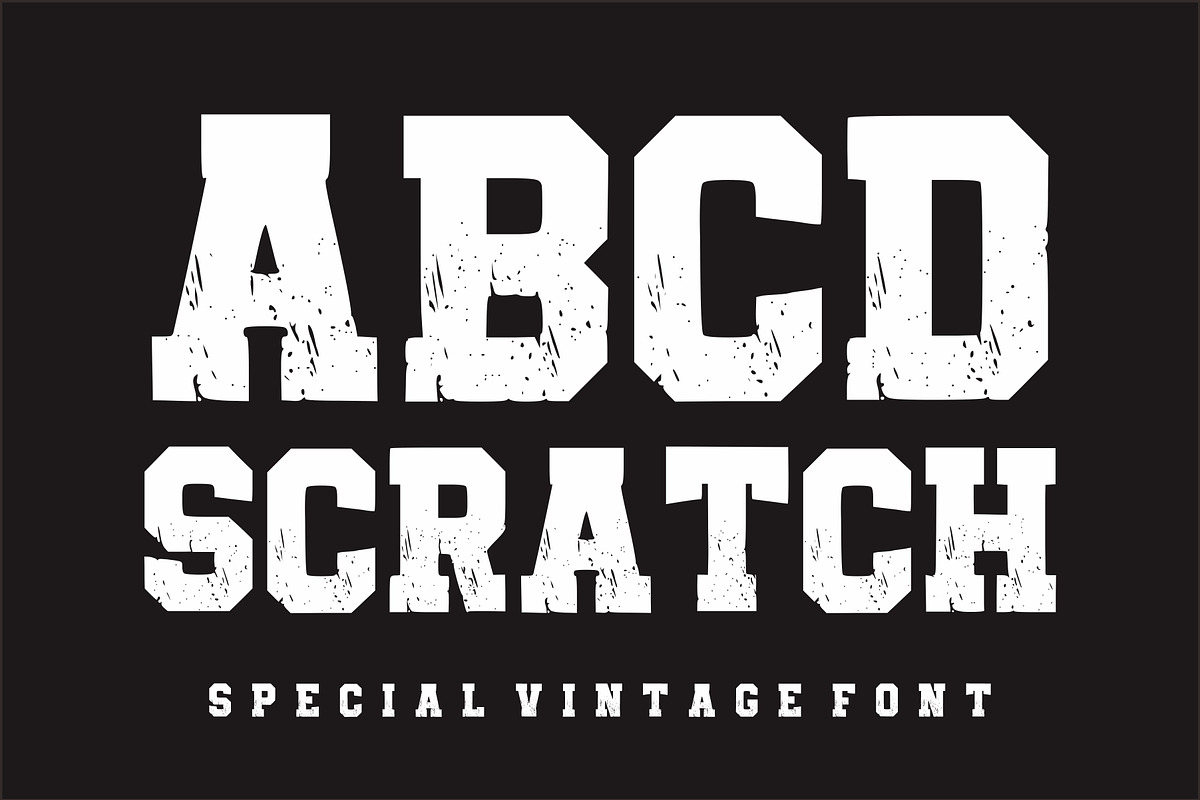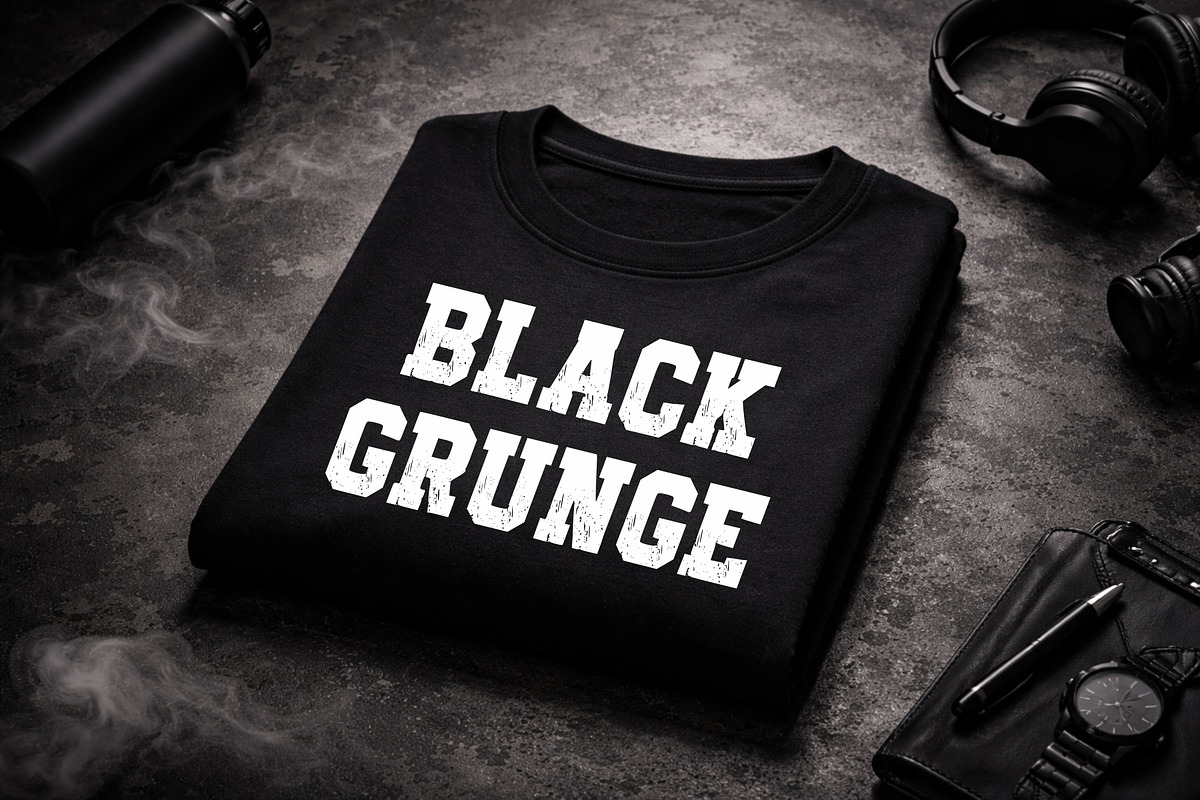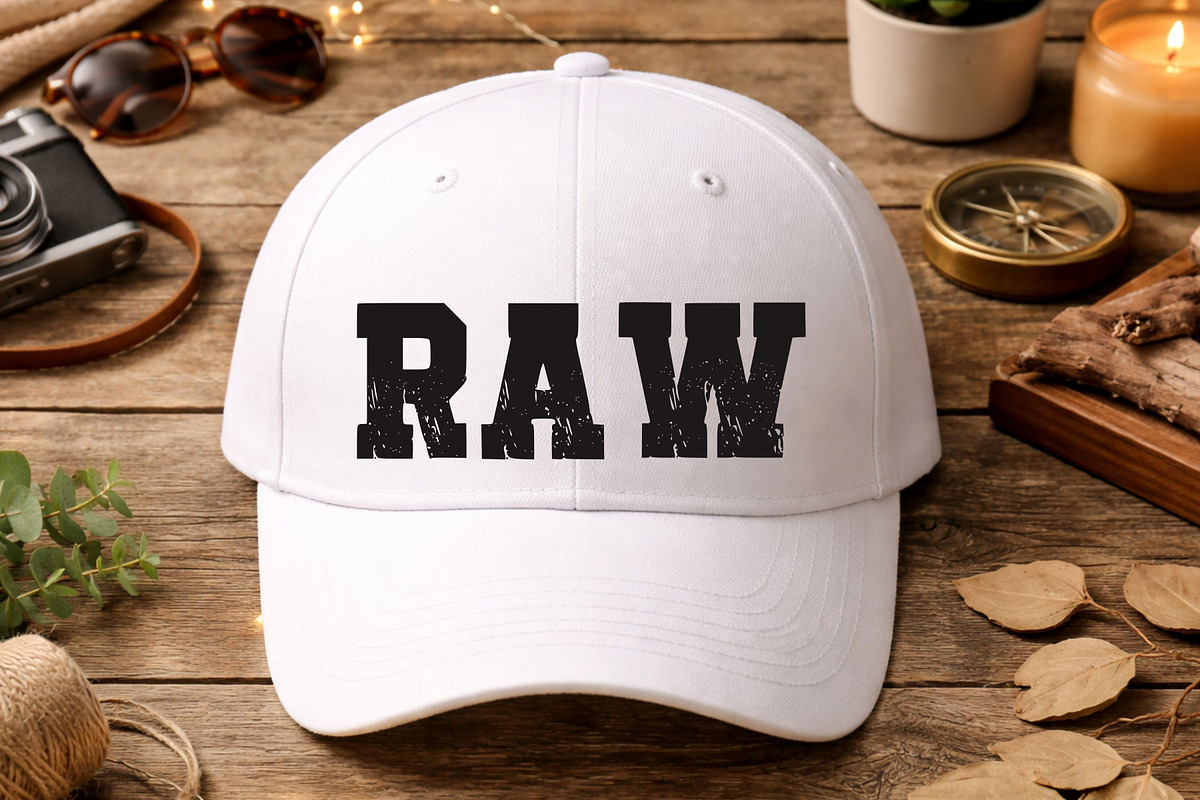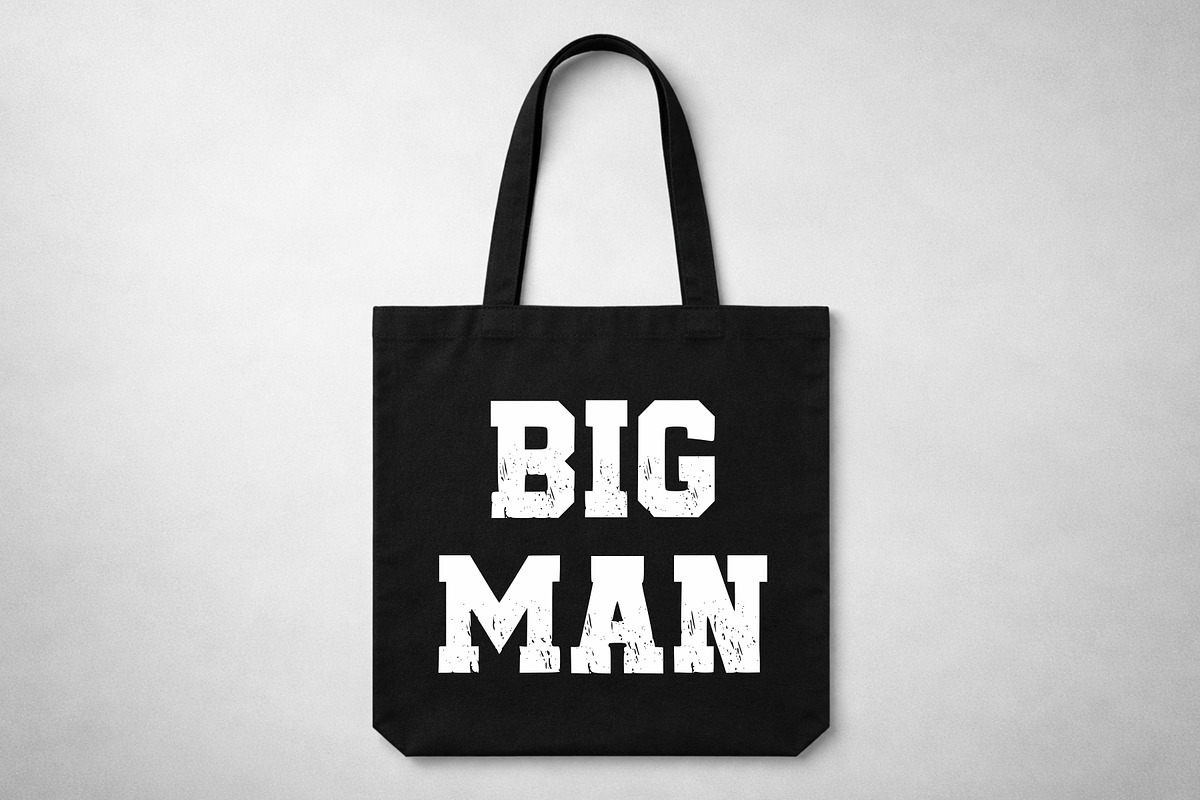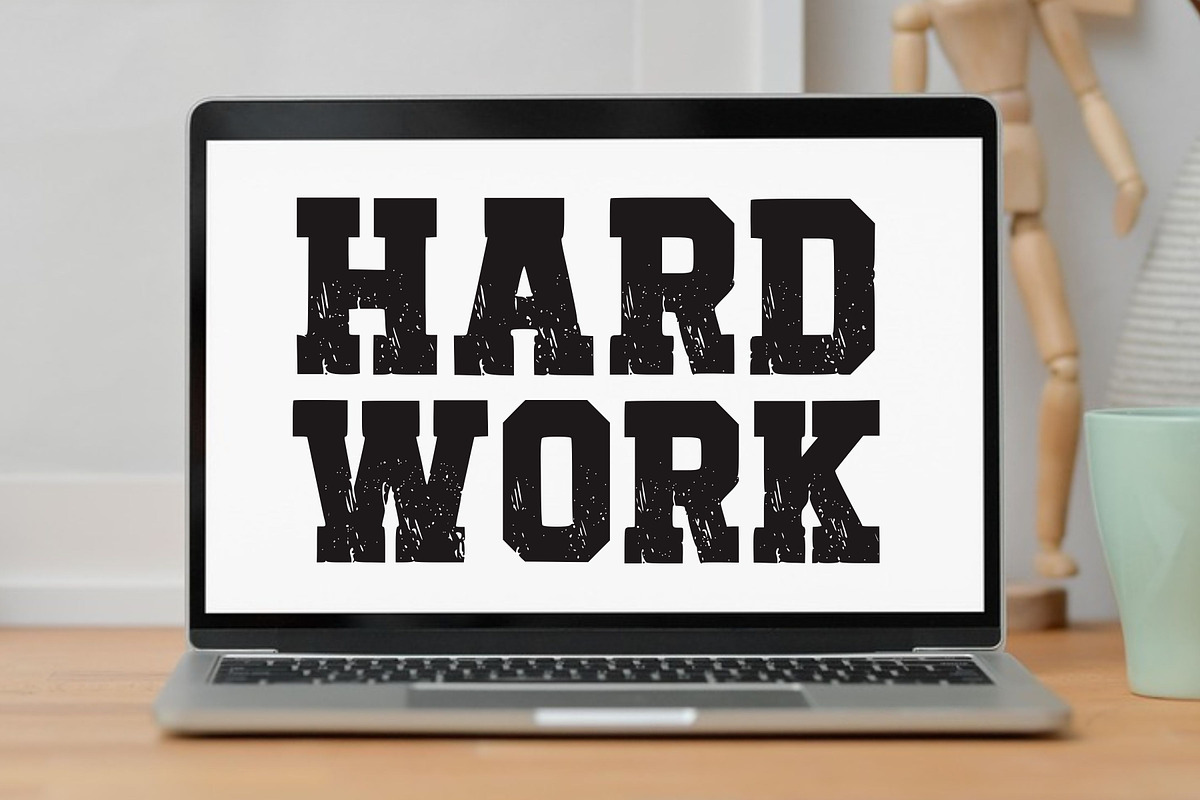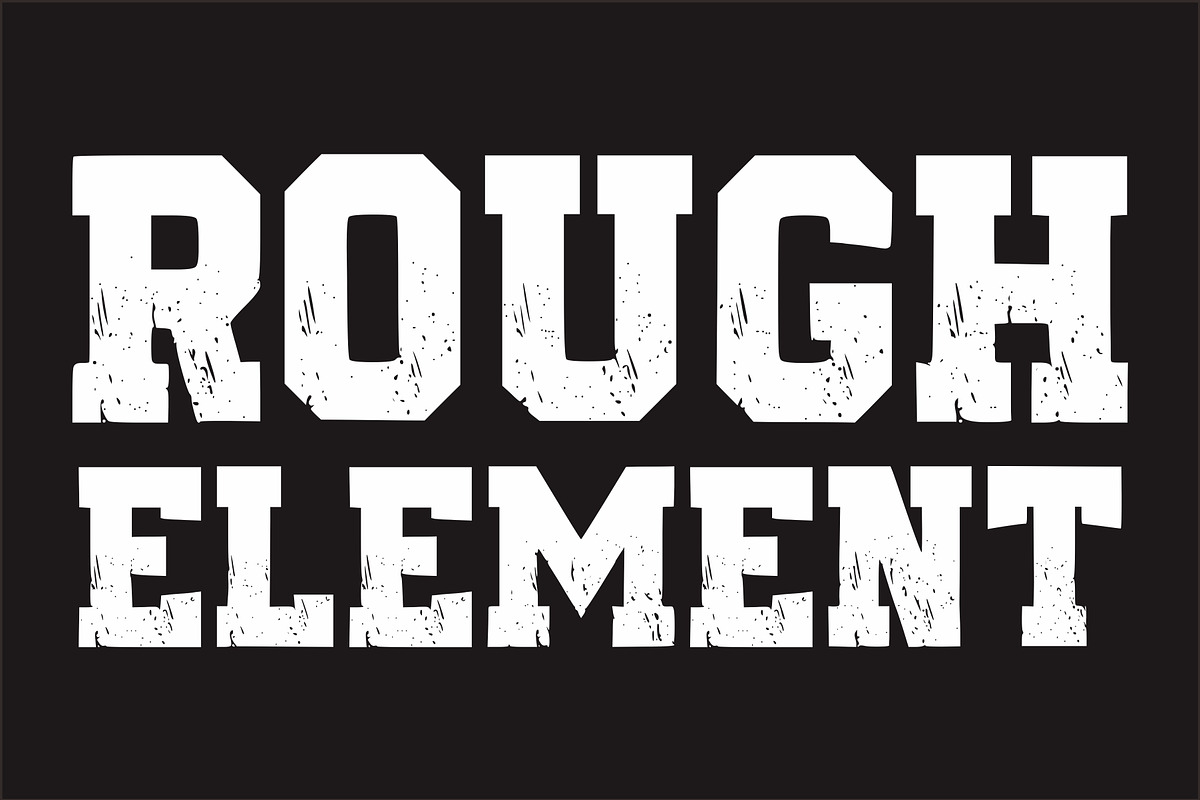
ABCD Scratch
ABCD Scratch is a bold and powerful vintage display font with a rugged distressed texture that brings authentic retro vibes to your designs. Inspired by classic varsity lettering and worn-out print effects, this font delivers a strong, masculine, and timeless look.
Perfect for branding, t-shirt designs, logos, posters, sports graphics, and vintage-themed projects, ABCD Scratch adds raw character and bold impact to every composition.
Whether you’re creating streetwear designs or nostalgic retro artwork, this font will make your typography stand out with its gritty charm and bold presence.